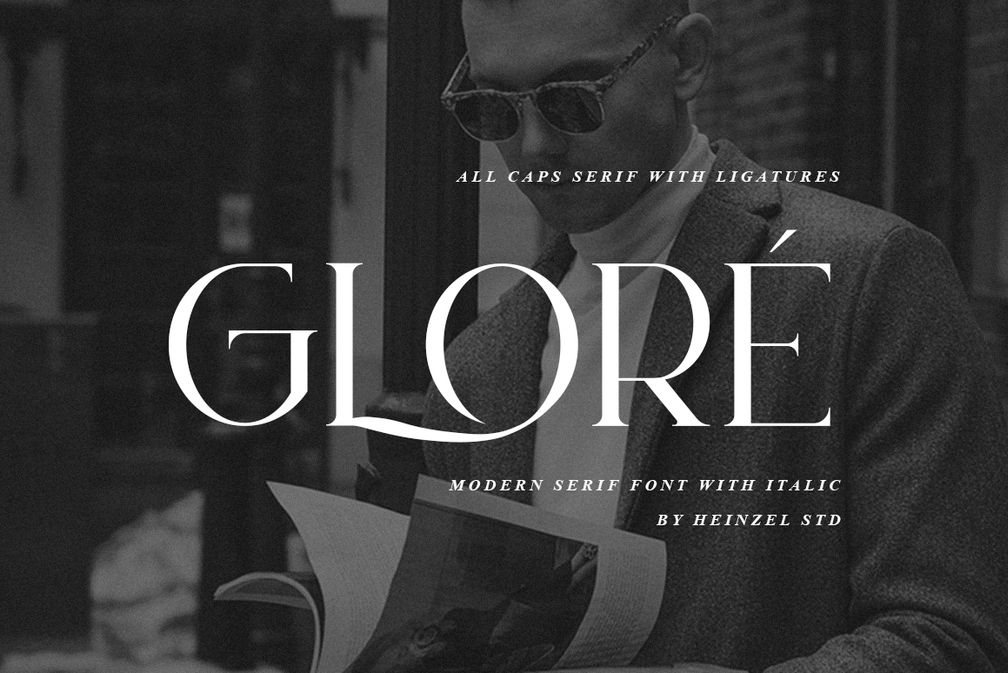
Glore Modern Serif Font
Glore is an elegant and modern serif font. Fall for its ravishing style and use it to create gorgeous wedding invitations, beautiful stationary art, branding, logos, headlines, headings, magazines, eye-catching social media posts, and much more.
Glore Features :
- Gloré Regular and Italic version, serif font all caps, numerals and more punctuations.
- Multilingual support for various languages
- Stunning Ligatures